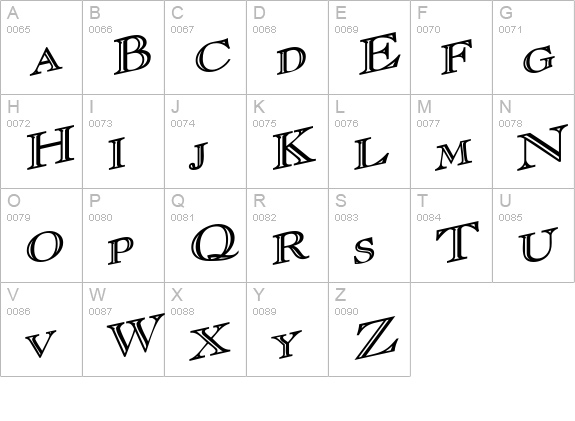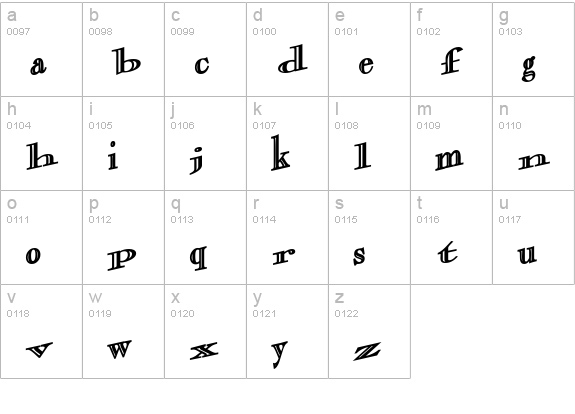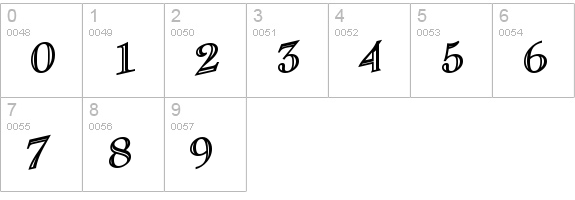
CasqueOpenFaceWacky Bold is a strong, high-contrast variant in the CasqueOpenFaceWacky typeface family \xE2\x80\x94 well suited to headlines, attention-grabbing titles, and strong calls-to-action.
CasqueOpenFaceWacky Bold font is a fun and whimsical typeface perfect for adding a touch of creativity to your projects. With its unique and playful design, this font is sure to stand out and make a statement. The bold and wacky letterforms bring a sense of energy and personality to any text, making it ideal for posters, invitations, and other eye-catching designs. What's even better is that CasqueOpenFaceWacky Bold font is available for free download at FontsMarket.com. This means you can easily access this one-of-a-kind font and start using it in your projects right away. Don't miss out on the opportunity to add a touch of fun and flair to your designs with CasqueOpenFaceWacky Bold font – download it for free today!